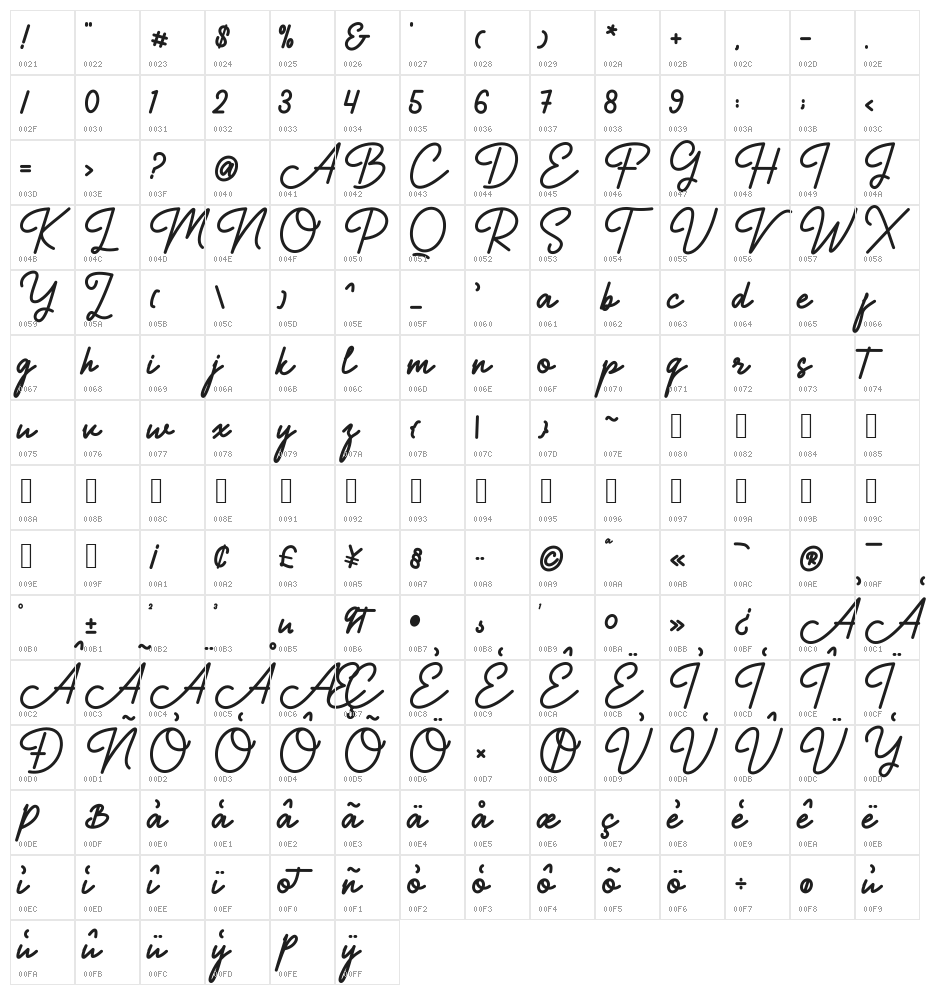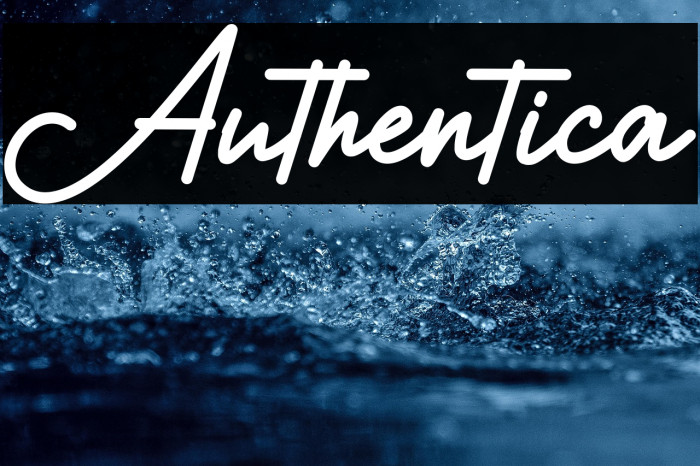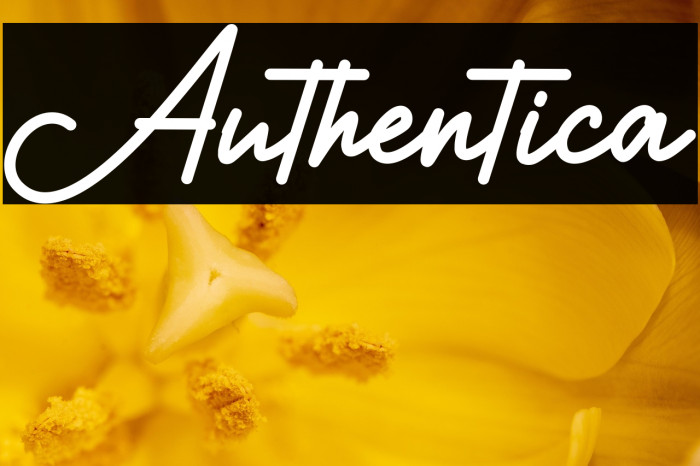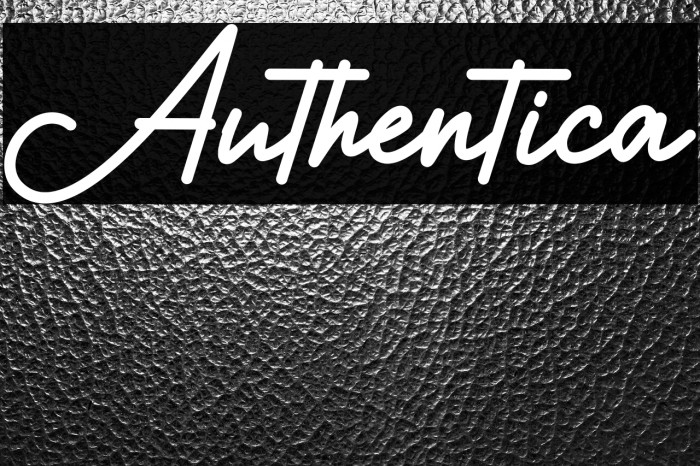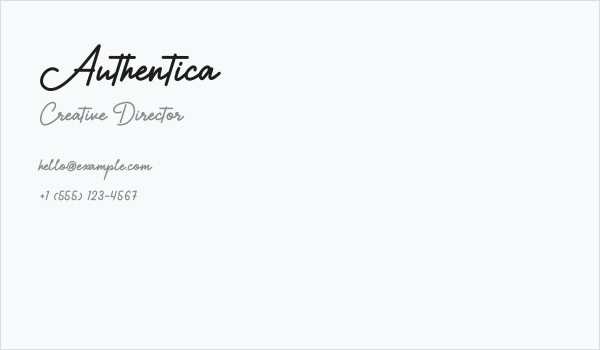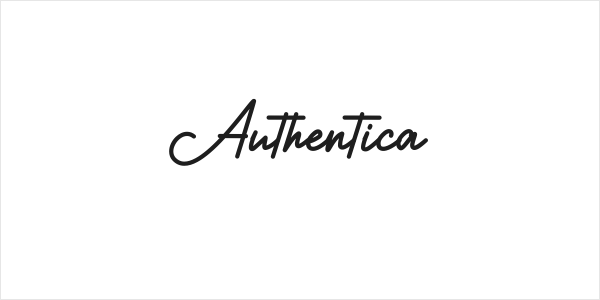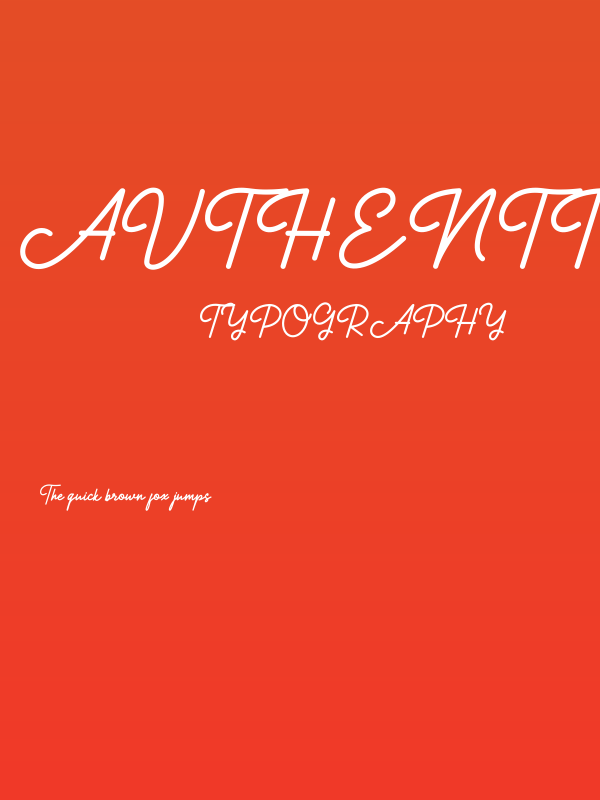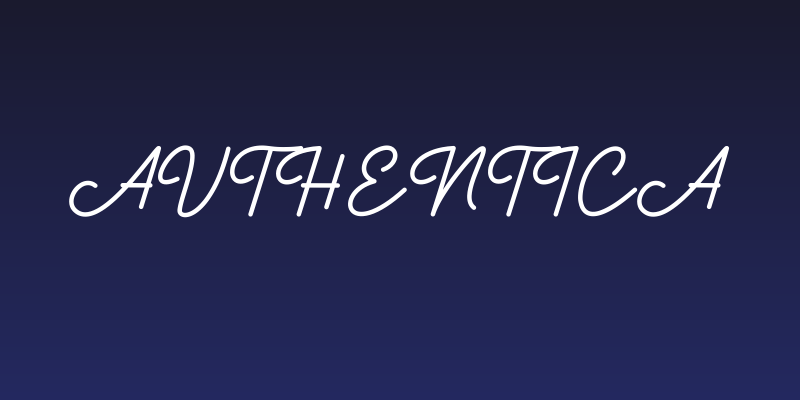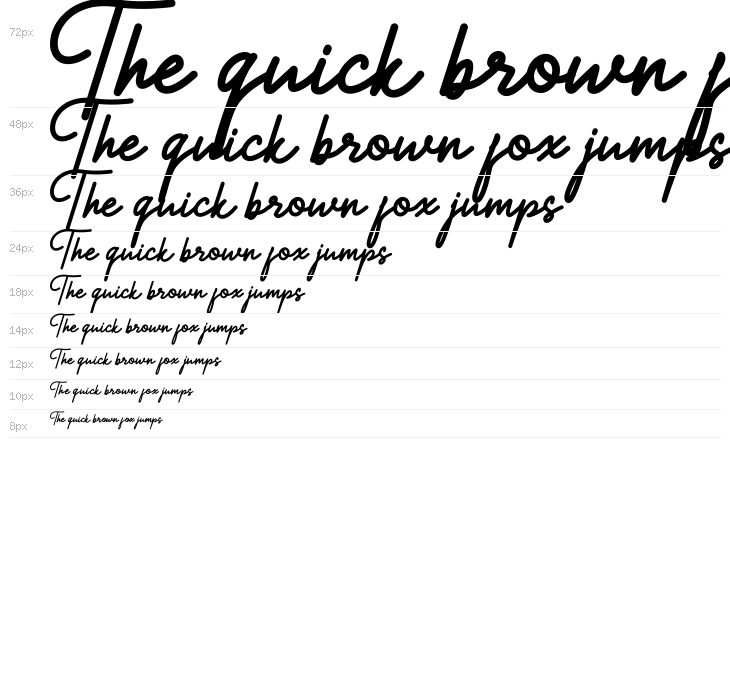
Authentica Font
Authentica Description
This font features a flowing, cursive style that mimics elegant handwriting. The uppercase letters are gracefully connected, while the lowercase letters maintain a consistent, smooth flow. The numerals are rounded and maintain the script style, adding a cohesive look across all characters. Special characters are designed to match the overall aesthetic, ensuring a seamless integration into any design. The font's strokes are moderately thick, providing good readability while retaining a stylish appearance. This font is perfect for projects that require a personal touch, such as invitations, greeting cards, or branding materials.
| Proposed Projects | Ideal for wedding invitations, personal branding, greeting cards, and elegant signage. |